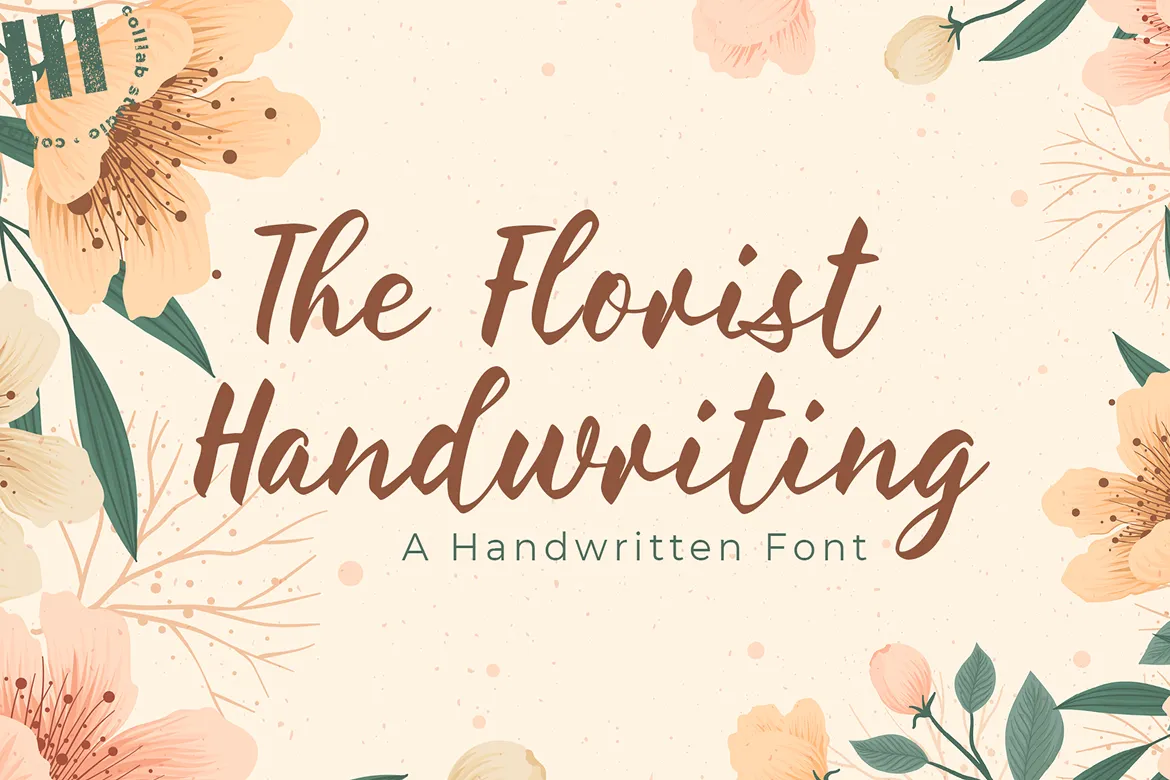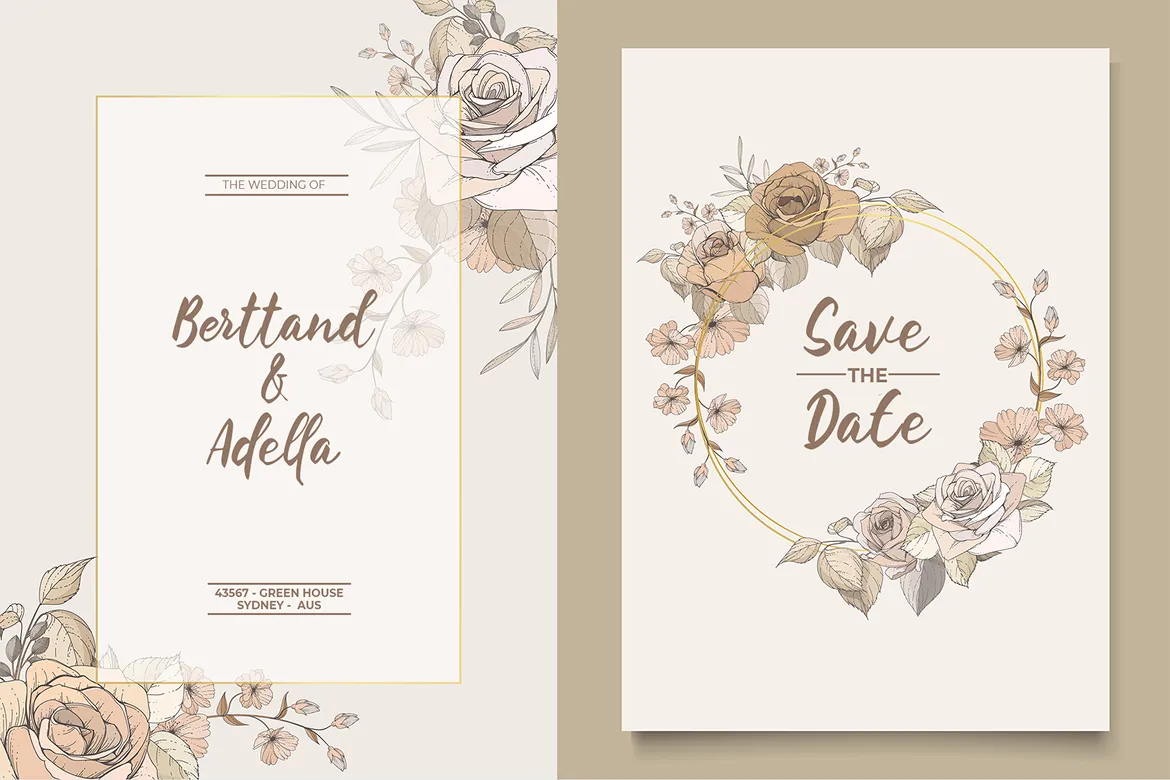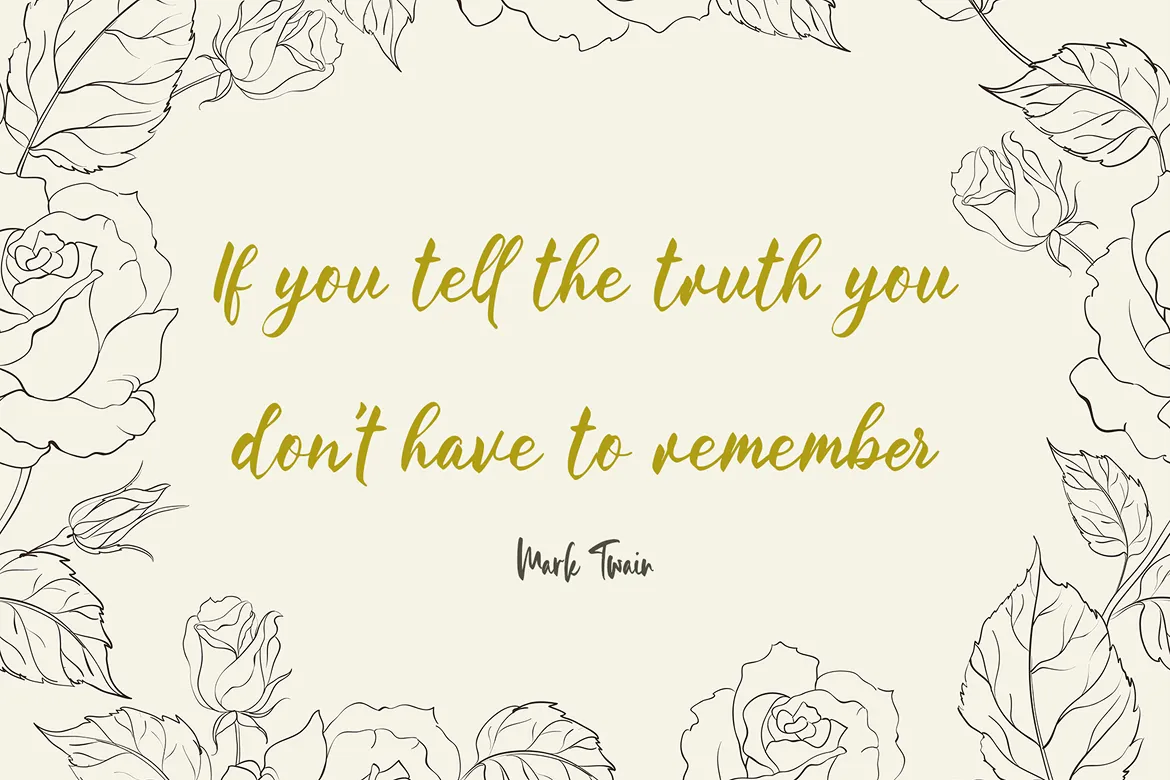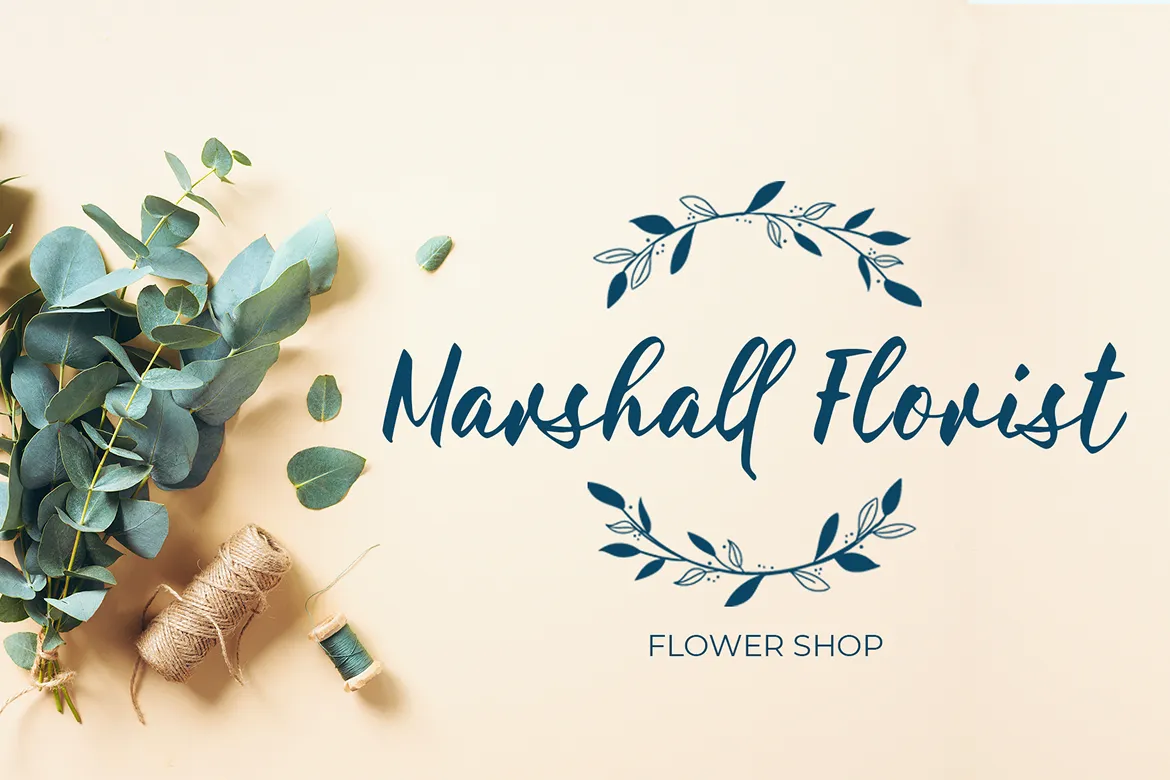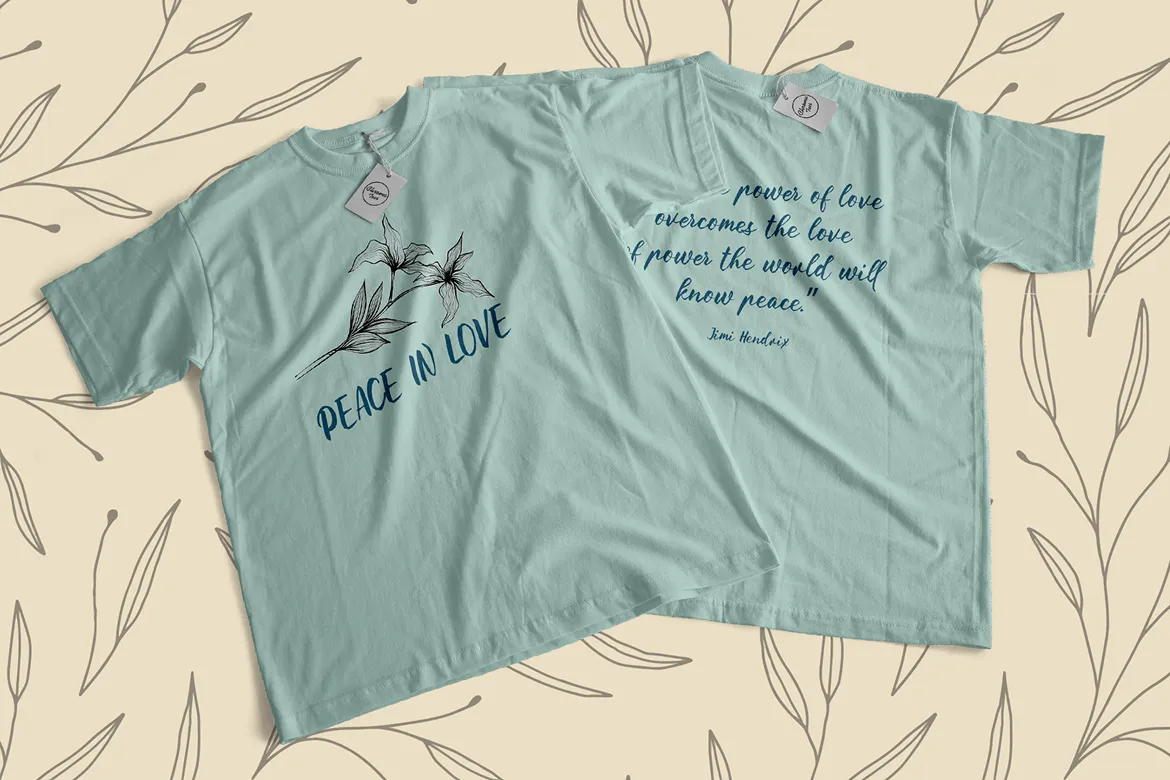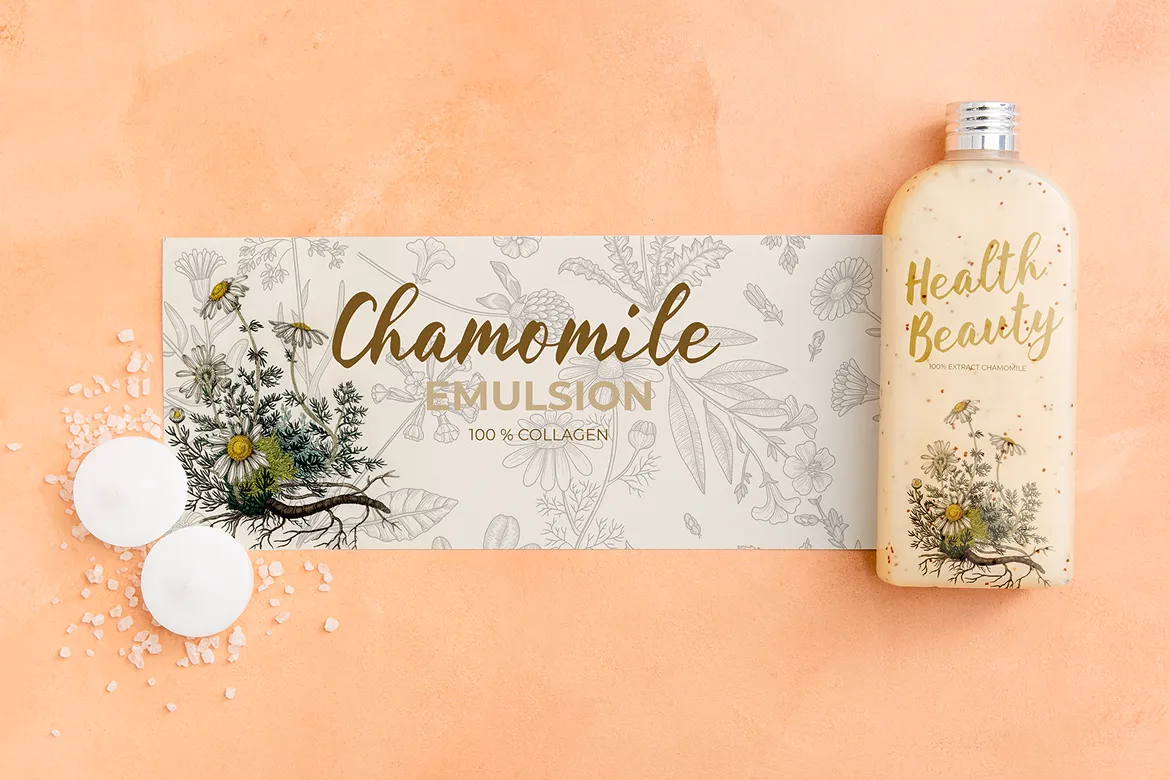
The Florist Handwriting is a modern handwritten script font that captures the grace and charm of blooming flowers. Its flowing strokes, calligraphy-style characters, and gentle irregular baseline create a feminine and organic look, perfect for wedding invitations, thank you notes, quotes, greeting cards, branding, and more.
This font is inspired by the artistry of floral arrangements—delicate yet intentional. Just like petals layered to form a beautiful bouquet, every letter in The Florist Handwriting is crafted to bring softness and elegance to your design projects.
Full uppercase & lowercase characters
Numbers & punctuation
Alternate glyphs for added creativity
Multilingual support